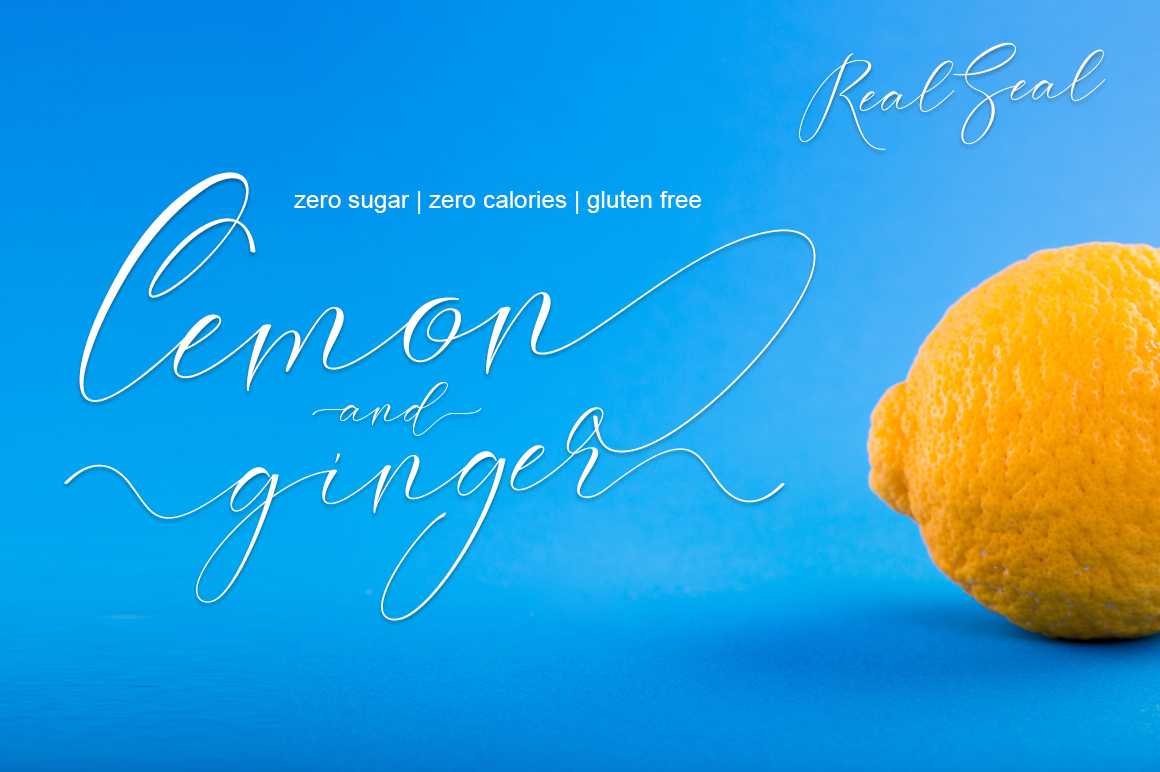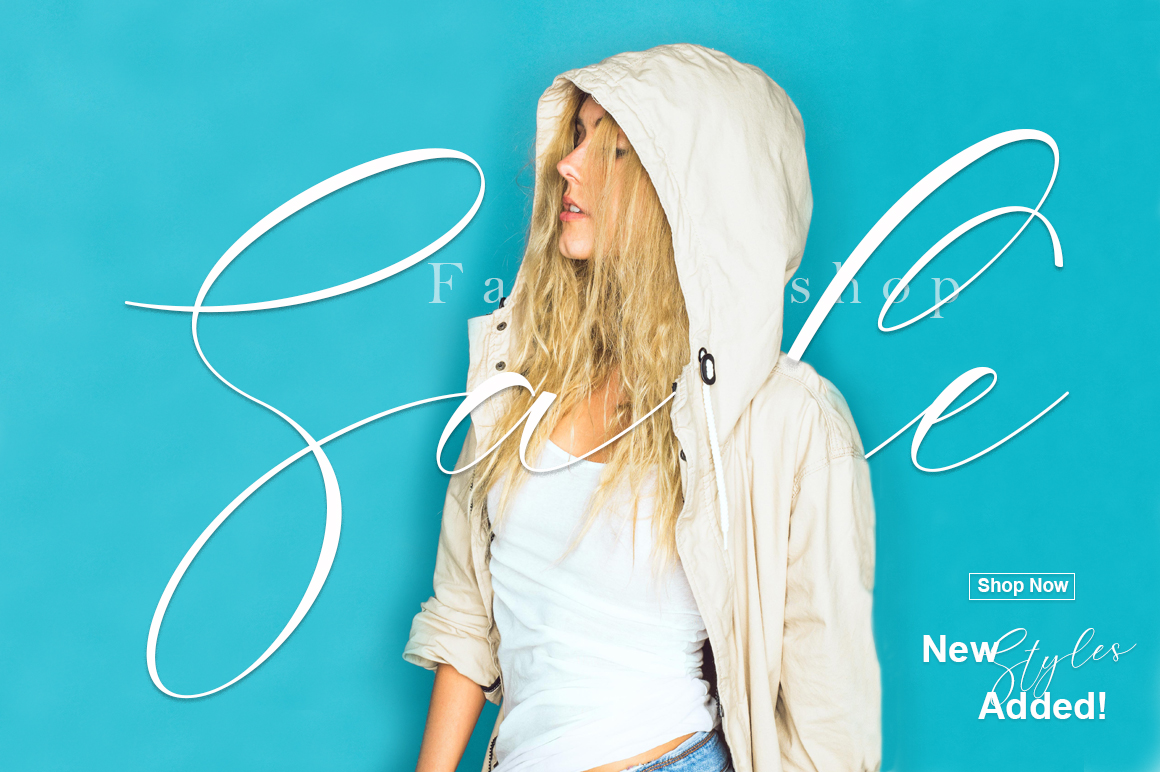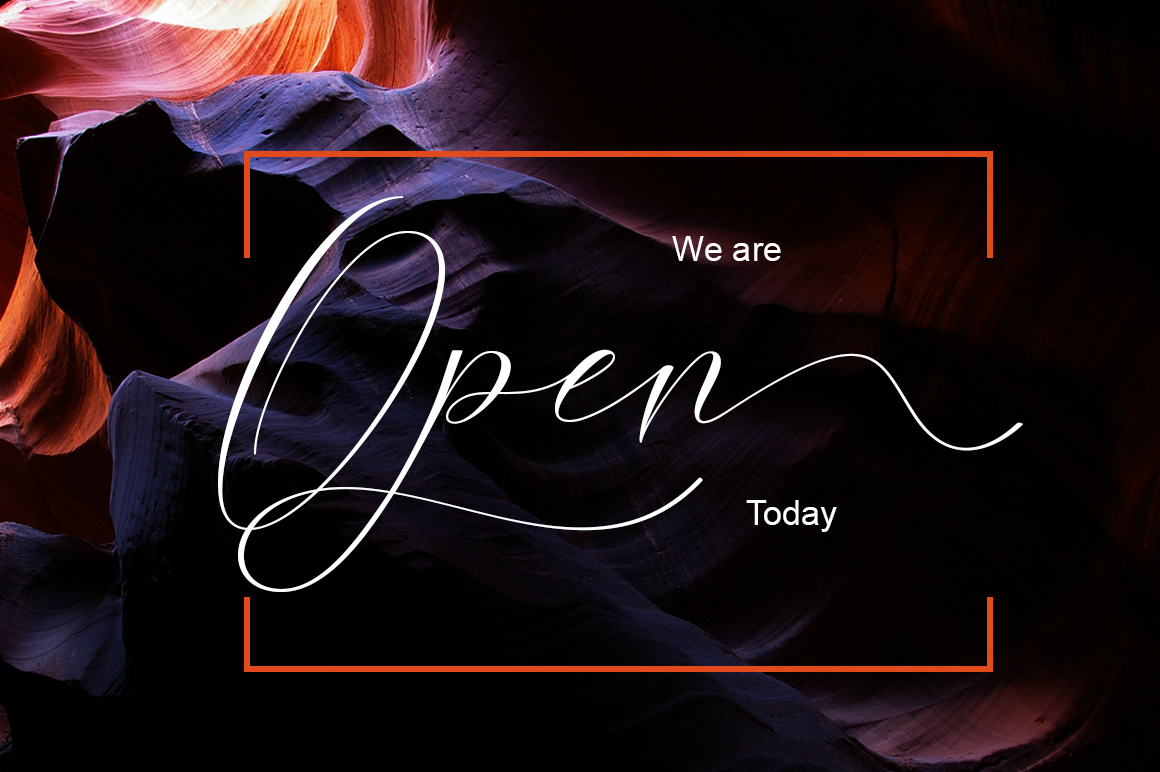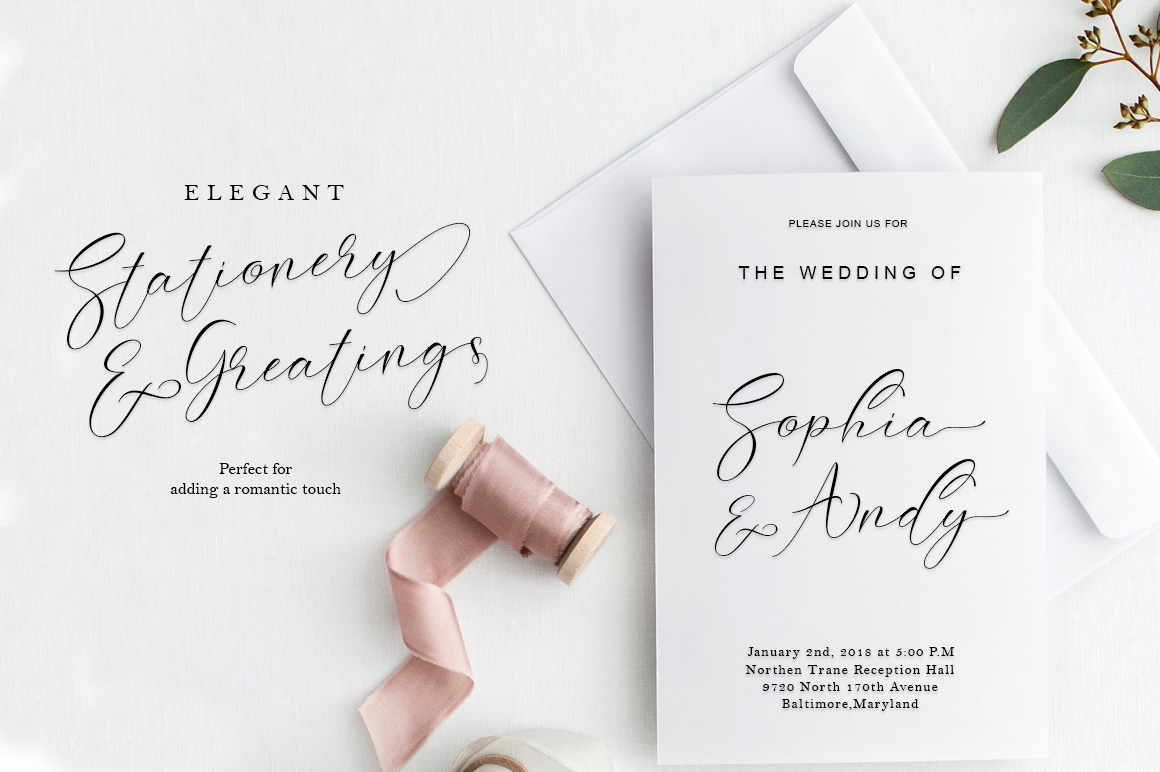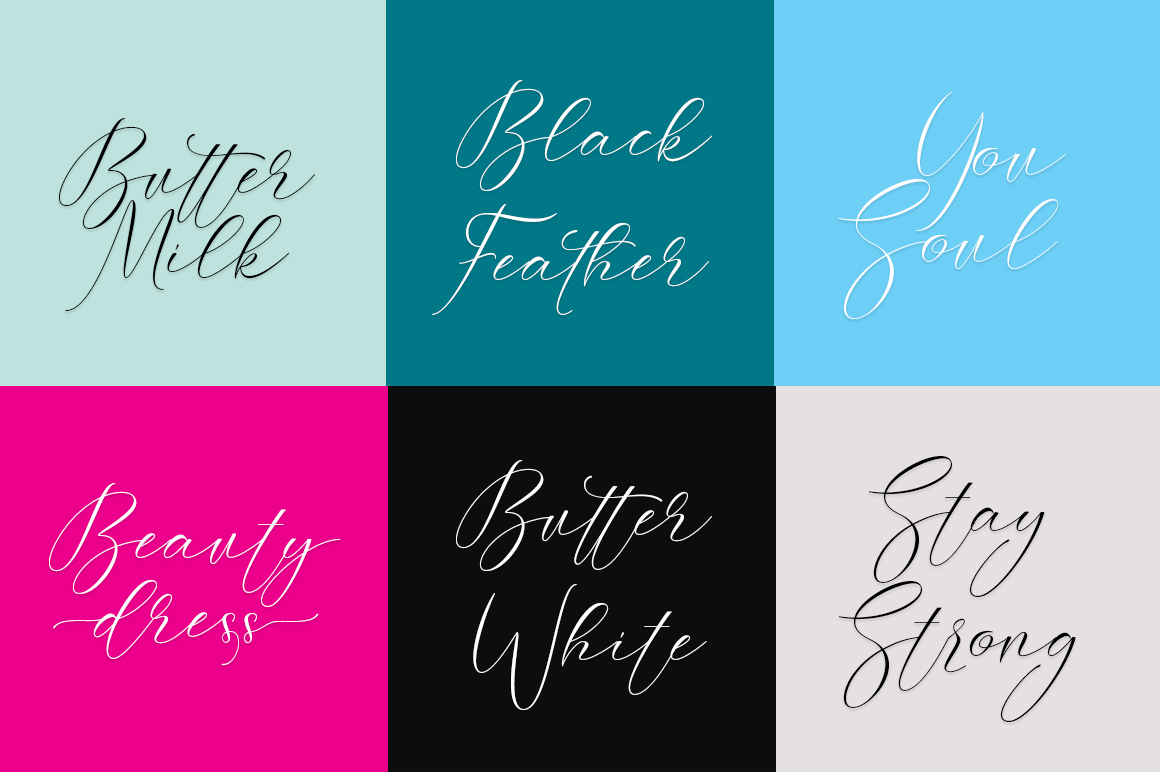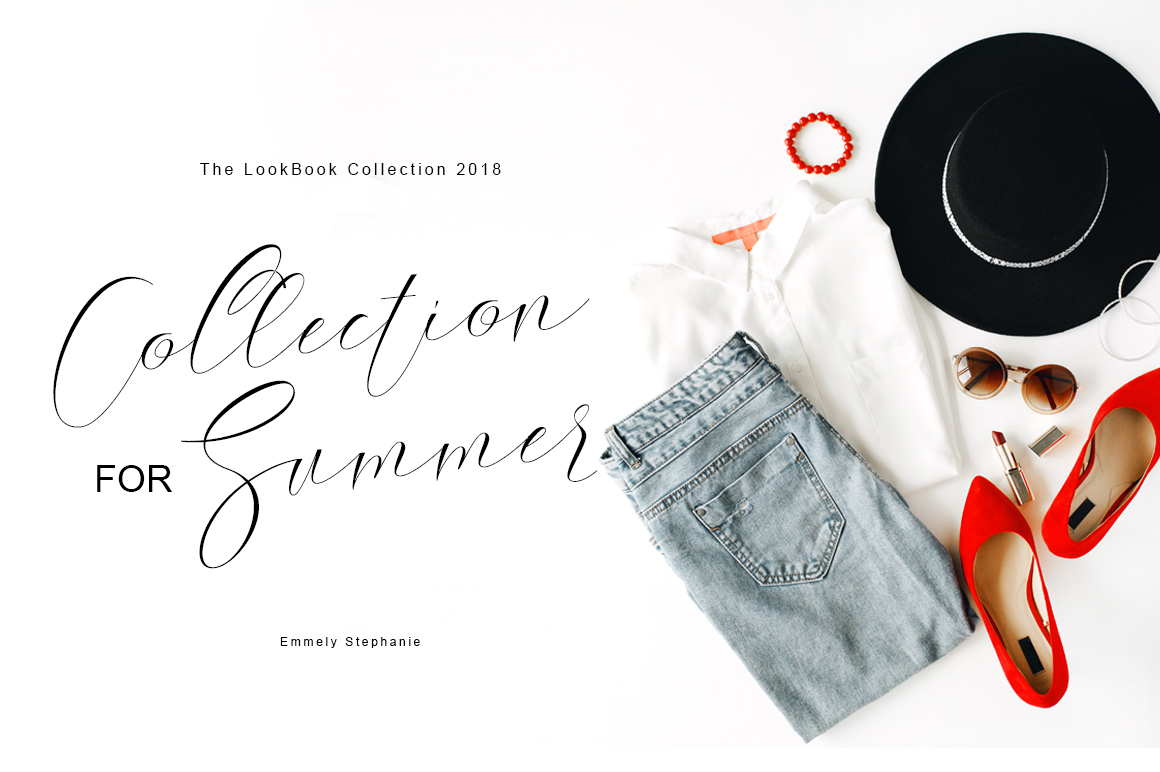
Introduction to Slavelake Font
Slavelake Script is a modern calligraphic-style script font.
It’s packed with swashes & ligatures and comes with 336 unique glyphs Will add a unique touch to any design in an instant.